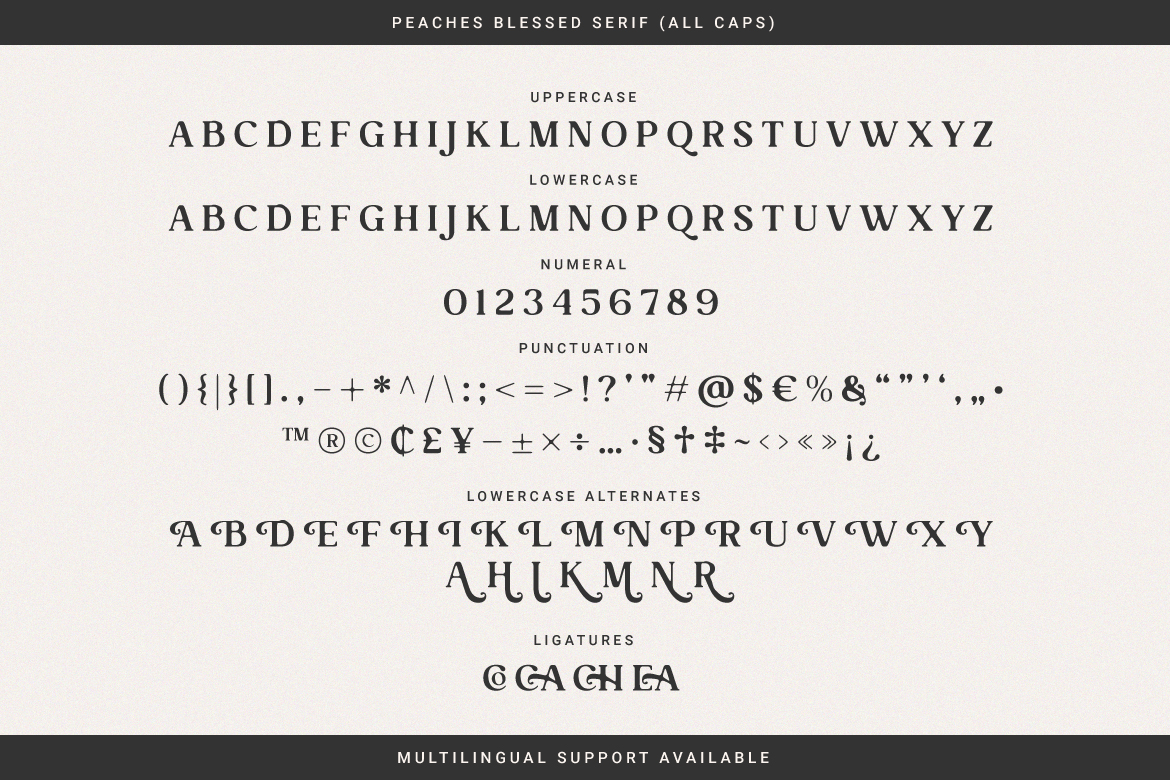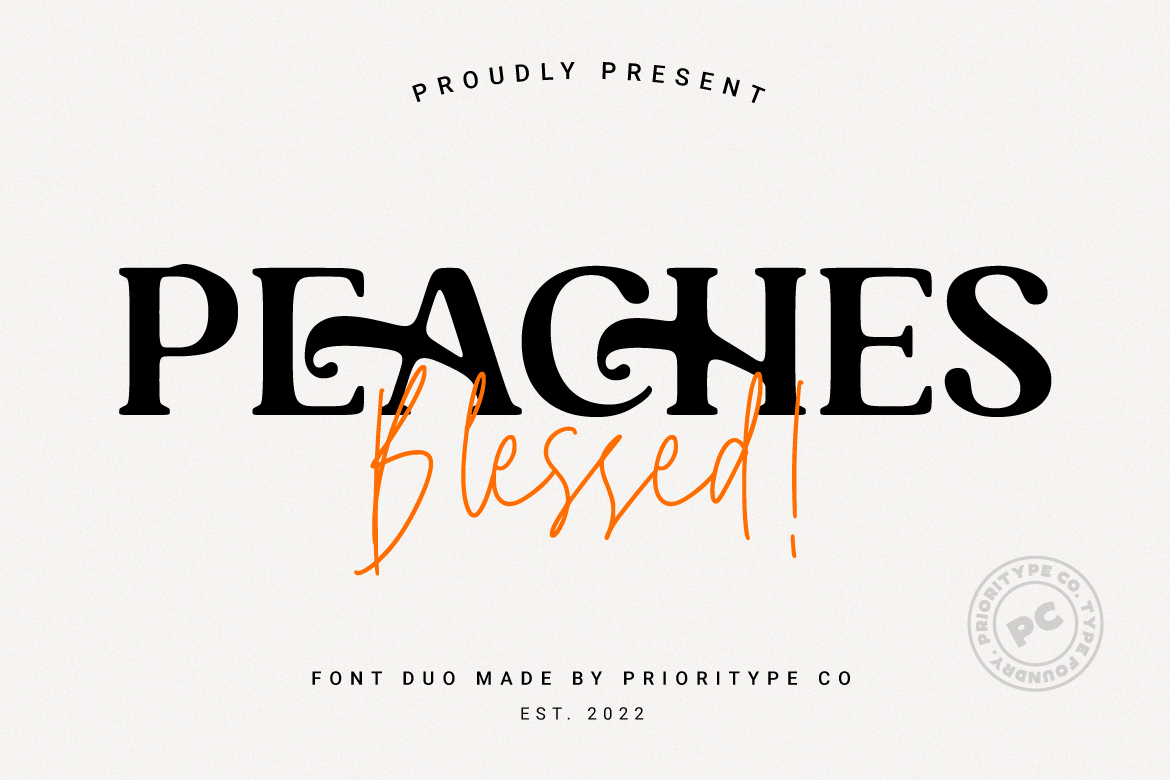
Peaches Blessed – Font Duo
Peaches blessed is a great paired font because it has organic characteristics and is luxurious to look at. With the additional characters in these two fonts, it makes your display more enjoyable. Great for branding, logos, wedding invitations, quotes and more.
- Features: Uppercase, Lowercase, Numeral, Punctuation, Multilingual Ligatures & Alternates.